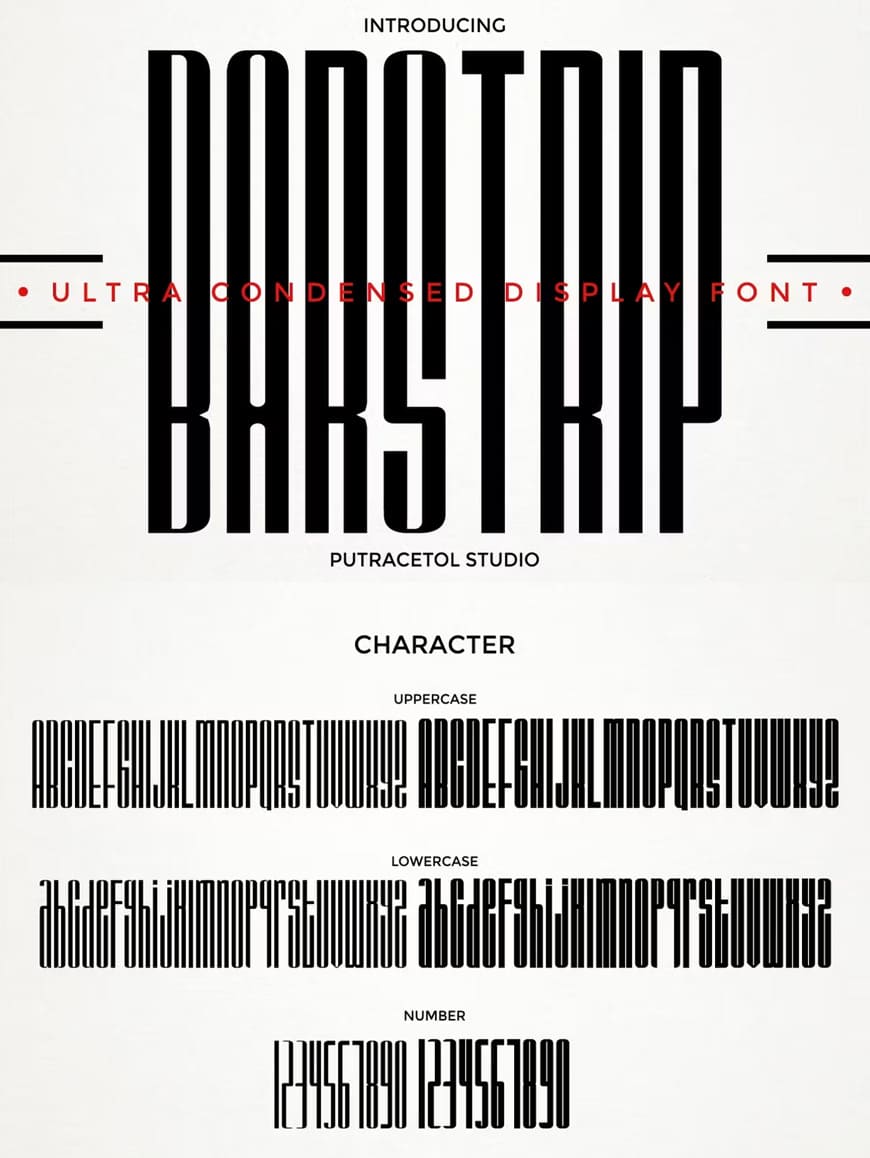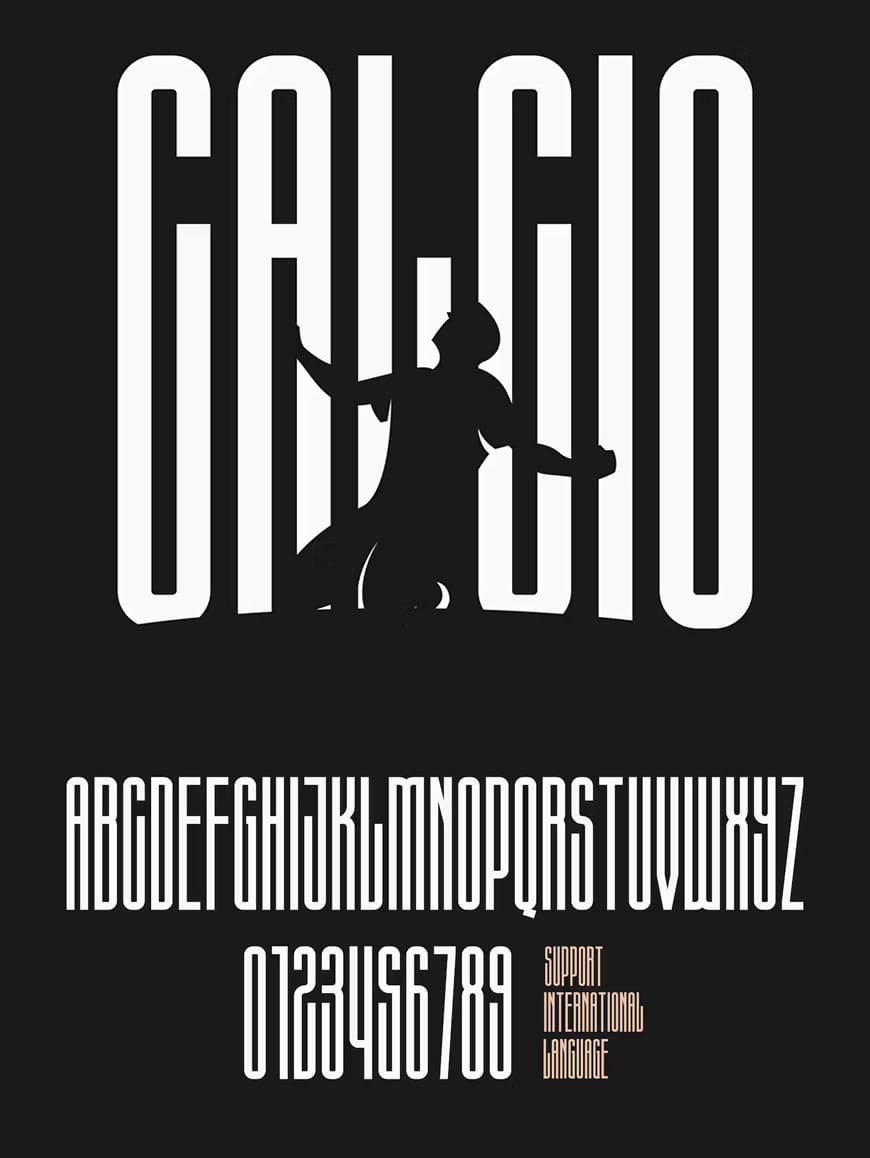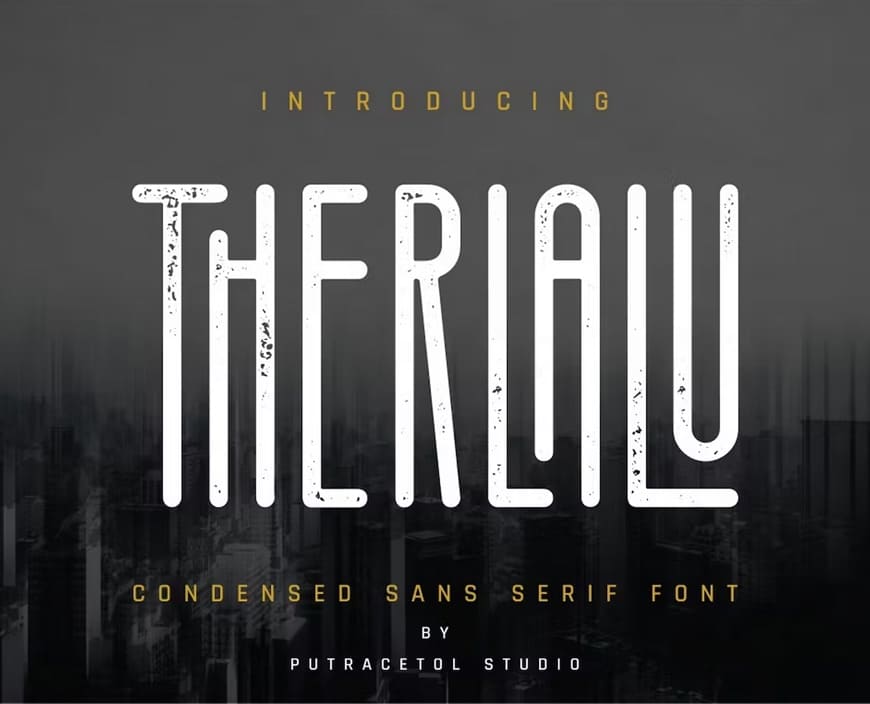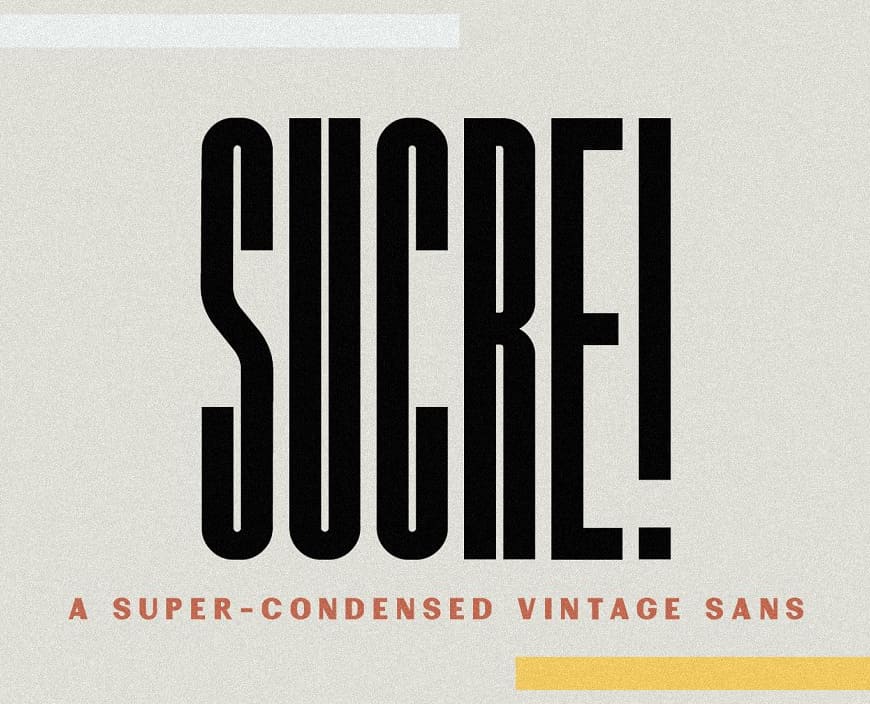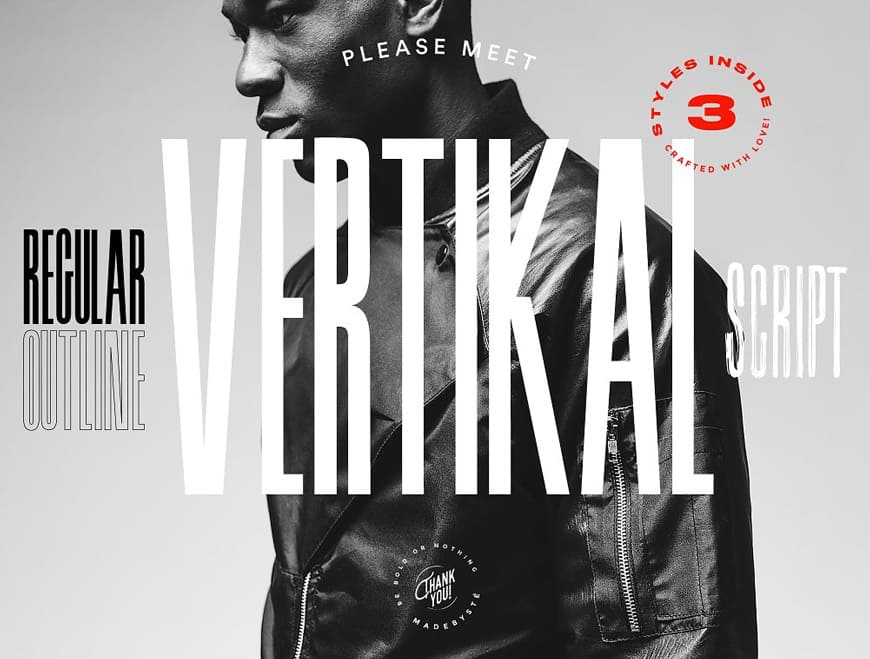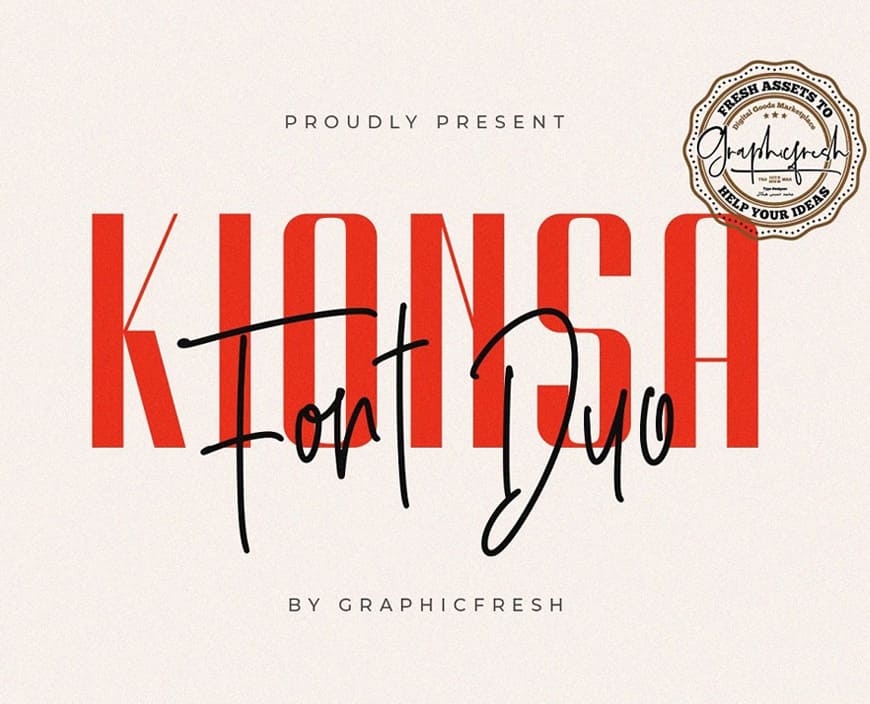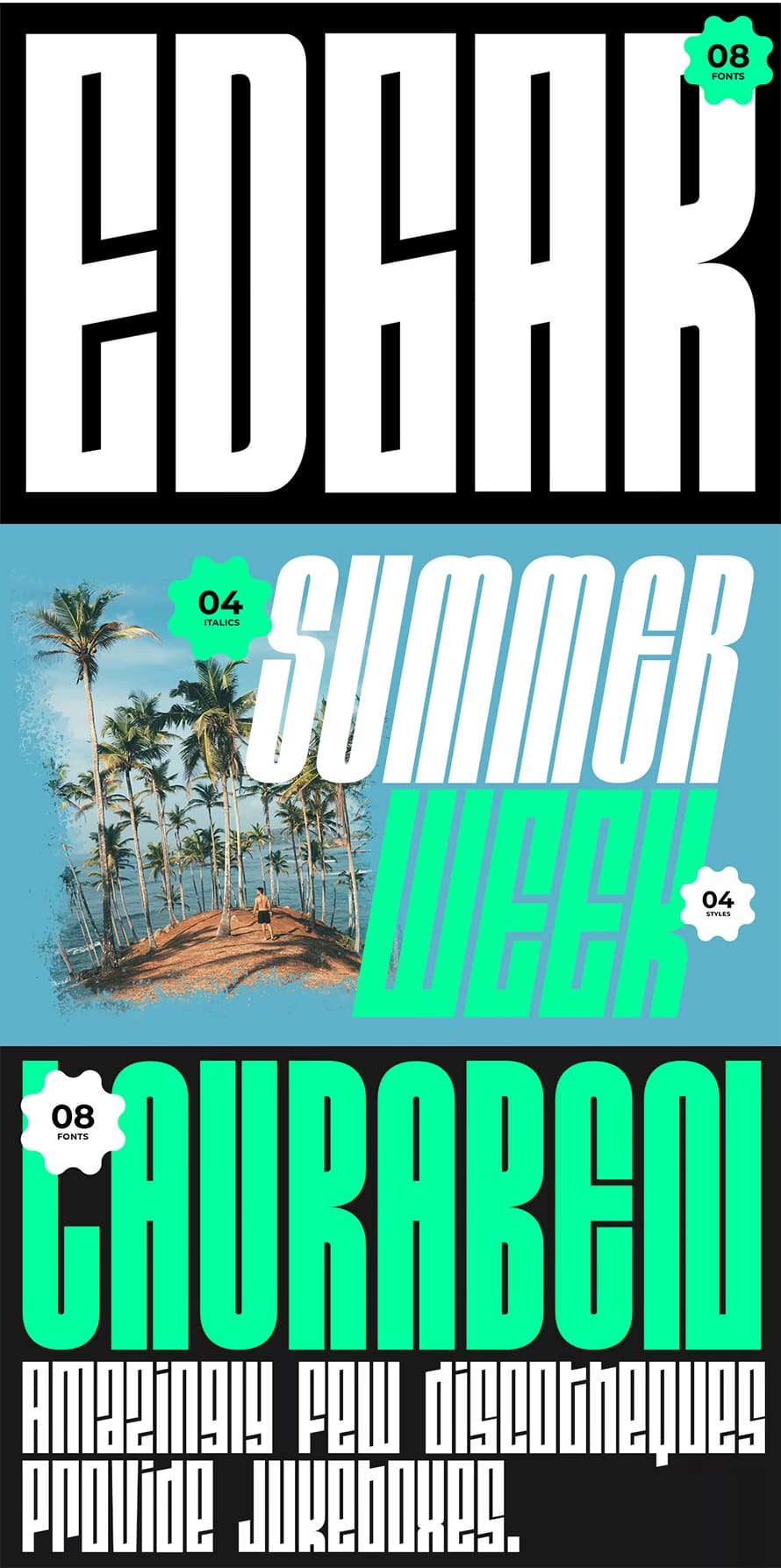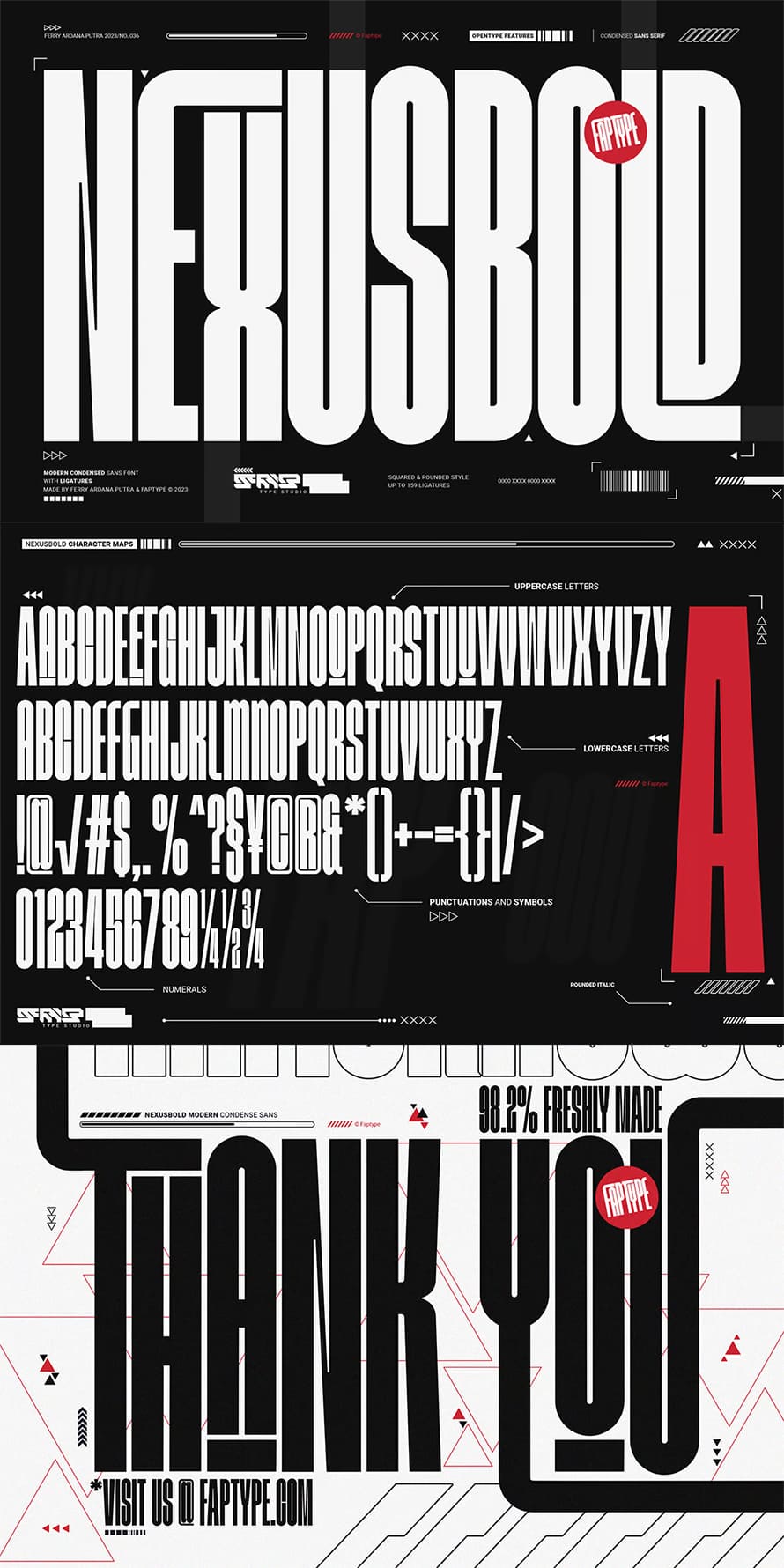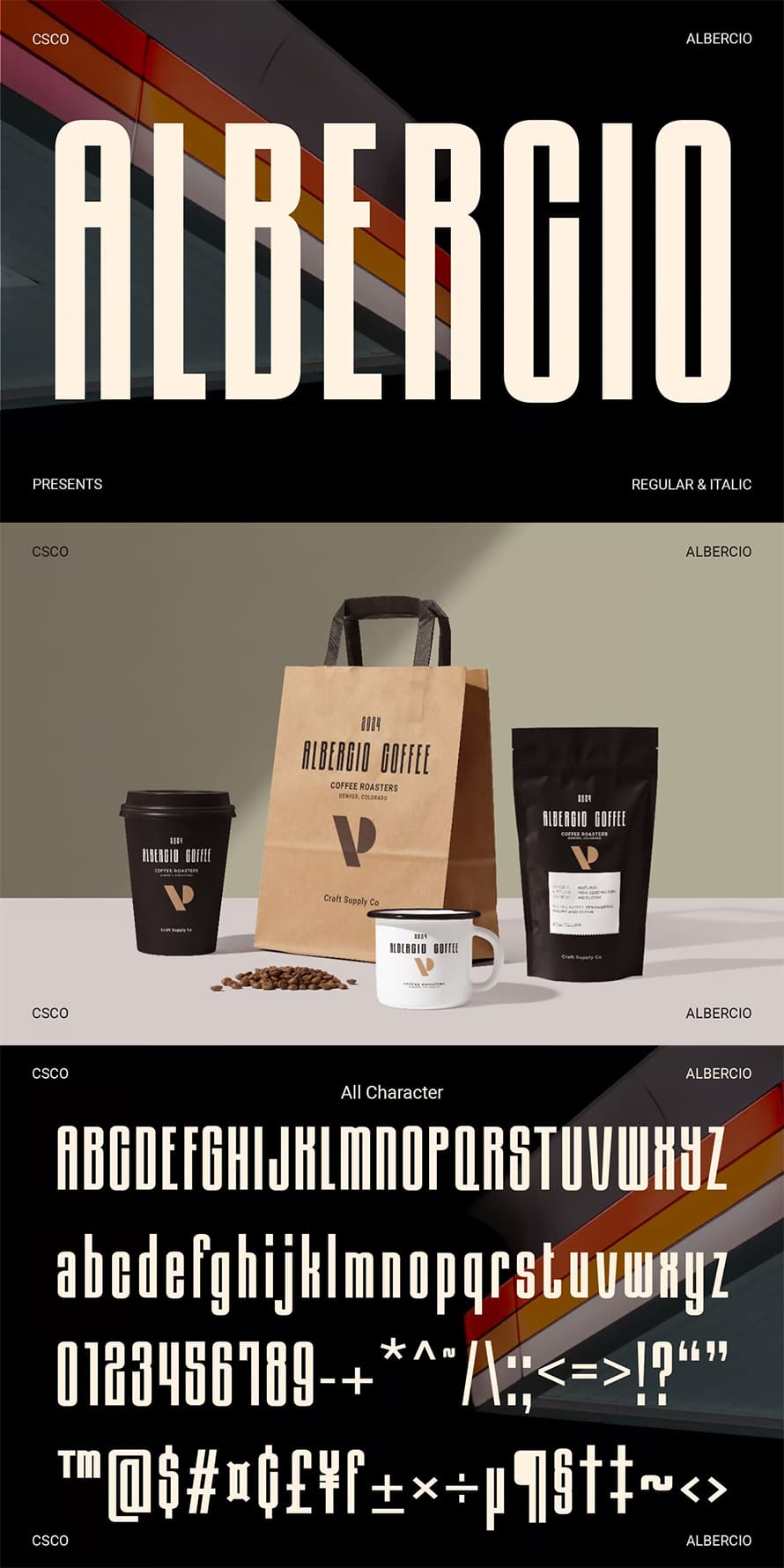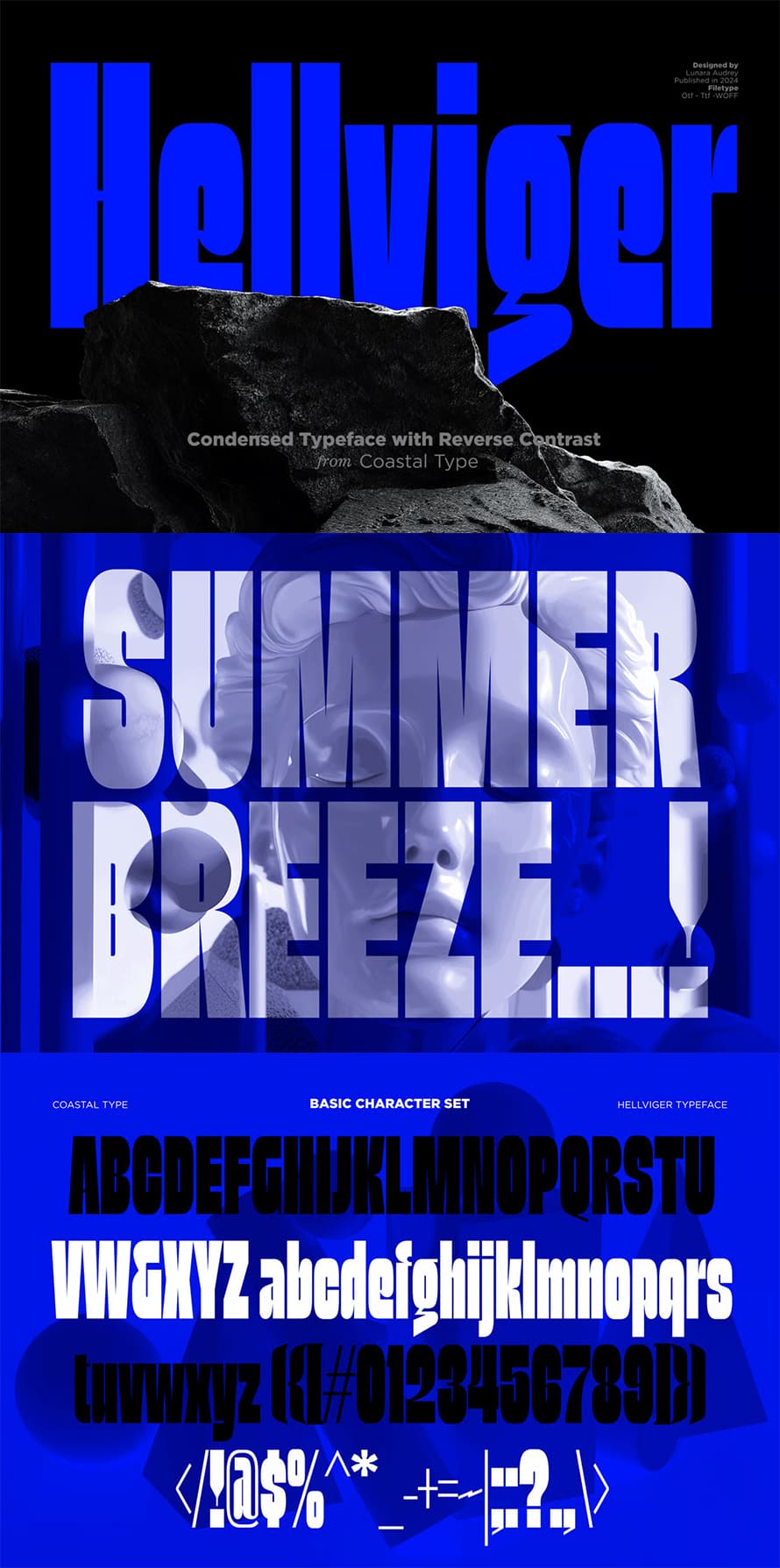
Ultra condensed fonts, often called condensed, narrow, or slim fonts, are designed to maintain readability while occupying less horizontal space. These typefaces are especially useful in branding, packaging, editorial layouts, posters, and digital interfaces where space is restricted but style and clarity remain important. By tightening letterforms without losing proportion, they allow designers to communicate more information in a compact format while retaining a strong visual impact.
When text must fit within limited dimensions, ultra condensed fonts provide an effective solution. Their narrow construction allows full words, taglines, or brand names to fit into tight layouts without compromising legibility. This makes them suitable for logotypes, signage, and advertisements where space is minimal yet every letter must remain clear and distinct.
Beyond practical space management, slim fonts also contribute to a distinct visual tone. Their tall, compact characters create a sense of precision and modernity, often giving layouts a sleek, structured feel. Designers frequently use these fonts to achieve contrast in typography systems, pairing them with wide or standard typefaces to emphasize hierarchy and guide attention.
The adaptability of condensed fonts across both print and digital platforms makes them an enduring choice. Whether used in minimalist branding, crowded magazine spreads, or mobile app interfaces, their ability to balance clarity with density ensures they remain a trusted option for professional typography.
1. Herculine Ultra Condensed Font
Herculine is an extraordinary display font that takes the concept of condensed typography to new heights, quite literally. This font boasts an ultra-condensed and towering design, making it a standout choice for modern, clean, and sleek design projects.
2. Barstrip Ultra Condensed Font
Ultra Condensed Display Font. BAR STRIP is inspired by barcode symbols that are high and neatly arranged. BAR STRIP includes in two styles (regular and bold) This tyepeface is Unique and very suitable for logos, Tshirt, apparel, quote, handwritten quotes, product packaging, tittle header, poster, merchandise, social media, labels, branding & greeting cards.
3. Calcio Ultra Condensed Font
Calcio – Ultra Condensed and minimalist character! it is perfect for logos, name card, magazine layouts, invitations, headers, or even large-scale artwork.
4. Therlalu Condensed Sans Serif Font
Therlalu is an modern, sans serif, elegant condensed display font. It contains a full set of lower and uppercase letters, punctuation, numerals, and multilingual support. Therlalu available in 2 stlye : Standar and Rough Version.
5. Sucre Vintage Condensed Sans Font
Inspired by mid-century print design, Sucre is a super-condensed vintage all-caps sans that is perfect for headlines, logos, quotes, and more! I love using this font for printed materials and headings – the height draws attention and the condensed letters create a visually-appealing mid century modern feel.
6. Vertikal Condensed Font
If you are looking for letters with attitude, Vertikal is the perfect fit. It is a memorable, strong and elegant typeface. You can mix and match the Outline and the Regular style to create something very fresh and modern. The Brush Script is the bad boy of the collection but still very classy.
7. Honkenia The Ultra Condensed Font
Introducing Honkenia, our latest ultra-condensed font designed for modern and stylish typography. With its sleek, narrow letterforms, Honkenia is perfect for bold headlines, branding, editorial design, and minimalist layouts.
8. Kionsa Ultra Condensed Font Duo
Introducing Kionsa Ultra Condensed Font Duo. It comes with an elegant and retro style which is perfect to make any design stand out! This font is perfect for branding, wedding invites, magazines, mugs, business cards, quotes, posters, and more.
9. Edgar Condensed Display Sans Serif Font
The EDGAR font family is a bold and ultra-condensed display typeface crafted to deliver high visual impact in modern design. With its towering vertical form, sharp internal angles, and brutalist character, EDGAR is made to stand out across posters, branding, album covers, packaging, and digital compositions.
10. Fatbold Slim Ultra Condensed Font
A powerful, ultra-condensed typeface meant to make a big impression is called Fatbold Slim. This typeface has a contemporary, urban feel to it with its thick, strong letterforms crammed into a little vertical space. Fatbold Slim is perfect for attention-grabbing headlines, posters, and branding materials because of its striking and readable appearance.
11. Nexusbold Ultra Condensed Sans Font
Introducing Nexusbold, a modern condensed sans font that redefines typographic excellence. With its sleek and contemporary design, Nexusbold is the epitome of elegance and functionality, enhanced by an extensive array of meticulously crafted ligatures.